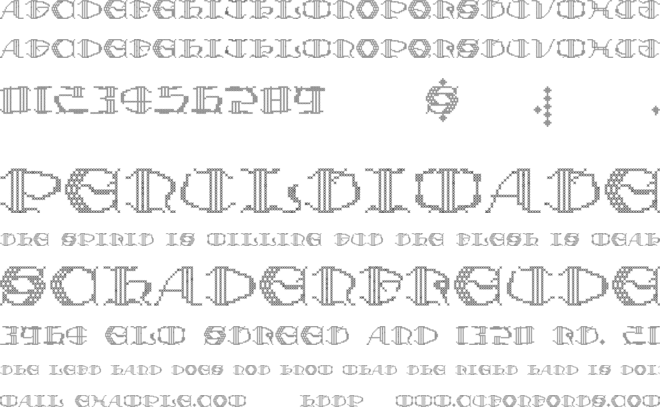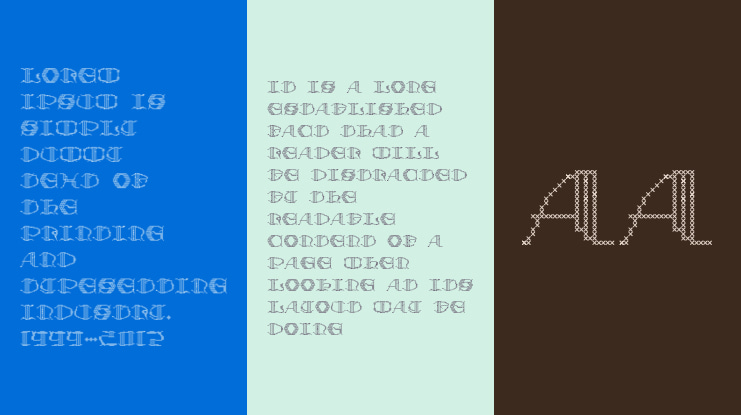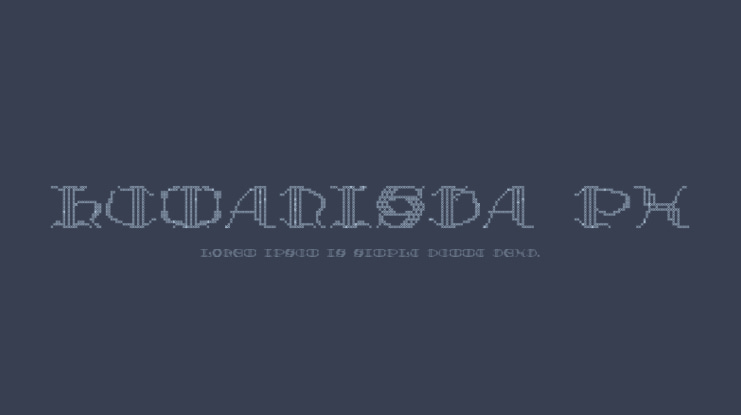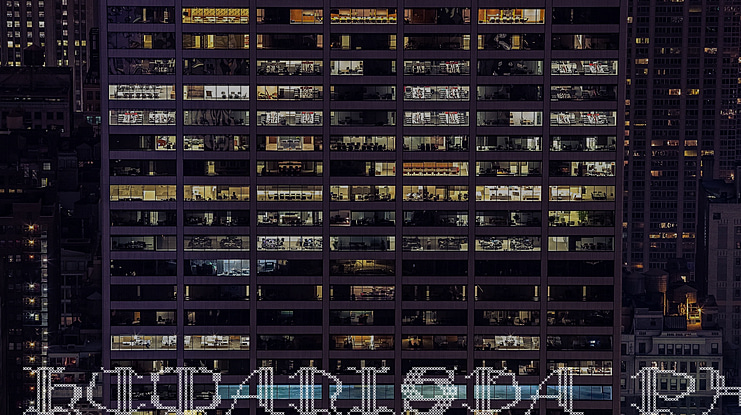
Humanista_PX Font
P. A. Vannucci
The union of popular culture established by the birth of writing in the ornament desired by the art of embroidery, for an original font that lends itself to the graphic modernity established by decoration.
L’unione della cultura popolare stabilita dalla nascita della scrittura nell’ornamento voluto dall’arte del ricamo, per un font originale che si presta alla modernità grafica stabilita dalla decorazione.